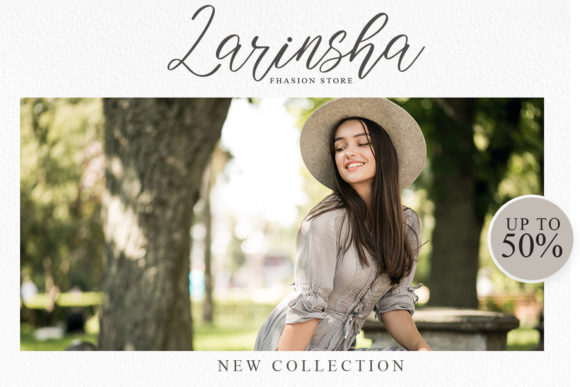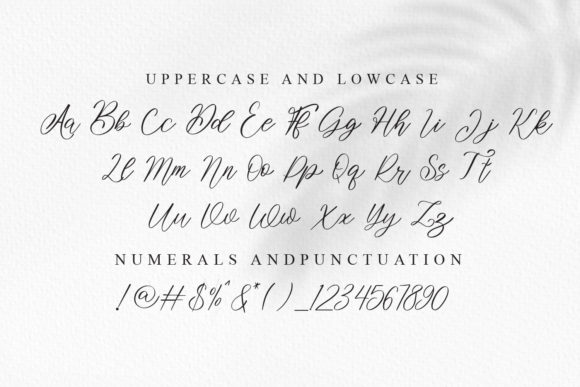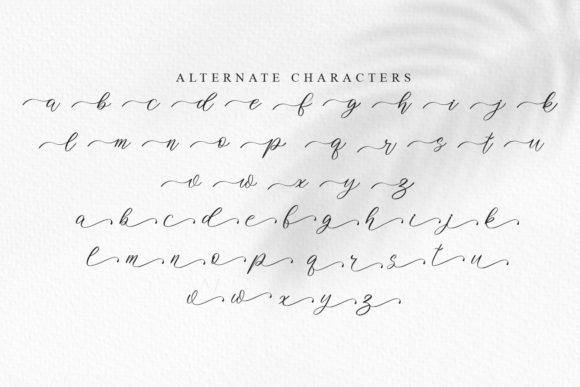
Introduction to Nathasya Font
Have you ever found yourself in the middle of a creative project, struggling to convey the perfect message through your typography? You’re not alone. As designers, we know that the right font can make all the difference in bringing our vision to life. That’s why we’re excited to introduce you to the Nathasya Font, a stunning handwritten font that’s sure to become a true favorite.
With its classy calligraphic influences and fresh, contemporary feel, Nathasya Font is the perfect design resource for any creative project. Its high-quality design and transparent background make it a valuable addition to any designer’s toolkit, allowing you to easily access and customize all its glyphs and swashes.
Whether you’re working on a branding project, a blog post, or a social media campaign, Nathasya Font is the perfect choice for anyone looking to add a touch of elegance and sophistication to their design. And the best part? You can download it for free, making it an accessible and affordable design resource for designers of all levels.
Key Features of Nathasya Font
- High-quality font with a sophisticated and elegant design, making it perfect for creative projects that require a touch of sophistication.
- Features a transparent background, allowing designers to easily layer and combine the font with other design elements.
- Available in a range of sizes and resolutions, including standard and condensed versions, to cater to different design needs.
- Unique characteristics include its elegant and refined lines, making it suitable for a wide range of creative projects, from branding to editorial design.
- Designed to be versatile and easy to use, Nathasya Font is an excellent addition to any designer’s toolkit, providing a high-quality design resource for free.
Honest Review: Nathasya Font
As a designer, I’m always on the lookout for high-quality design resources that can elevate my creative projects. Recently, I stumbled upon the Nathasya Font, and I’m excited to share my honest review with you.
What works well: ✨ The Nathasya Font is incredibly versatile, with a wide range of uses from headings to body text. Its sleek and modern design makes it perfect for a variety of creative projects. I also appreciate that it’s available for free download, making it an excellent addition to any designer’s toolkit.
Some notable features include:
- High-quality typography with a transparent background
- Perfect for digital design, print materials, and even web development
However, I do have a few limitations to note: ⚠️ The font doesn’t come with a comprehensive user manual, which can make it challenging for beginners to navigate. Additionally, some users may find the font too minimalist for their taste.
Overall, I’m impressed with the Nathasya Font, and I think it’s an excellent design resource for any creative project. Its high-quality typography and versatility make it a valuable addition to any designer’s toolkit.
Nathasya Font
The Nathasya Font is a high-quality design resource perfect for creative projects. With its elegant and sophisticated style, it’s ideal for a variety of applications.
Tips for Getting the Most Out of Nathasya Font
To get the most out of the Nathasya Font, be sure to:
- Use it with a transparent background to create a seamless design.
- Pair it with other high-quality fonts to create a cohesive look.
The Nathasya Font is commonly used for:
- Business cards and marketing materials.
- Artistic projects and creative endeavors.
Alternatives to Nathasya Font
Ostrich Sans is a high-quality sans-serif font ideal for modern creative projects. It features a clean and minimalist design, making it perfect for use on a transparent background. It’s a great alternative to Nathasya Font for designers looking for a more straightforward, easy-to-read font.
Comparison to Nathasya Font: Ostrich Sans is more straightforward and lacks the ornate details found in Nathasya Font, but it provides a clean and modern look that’s perfect for a wide range of design projects.
What is the resolution of the Nathasya Font’s transparent background?